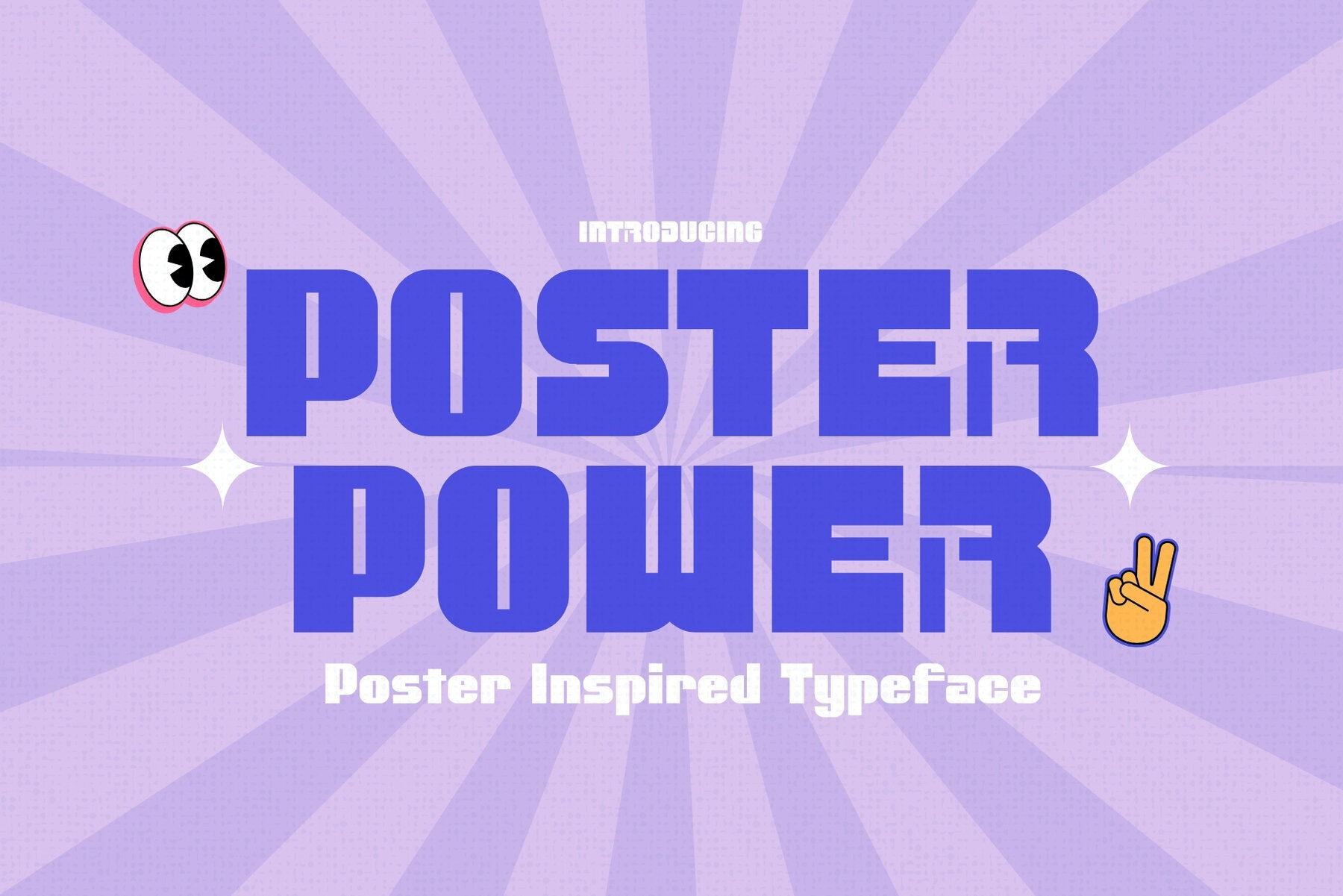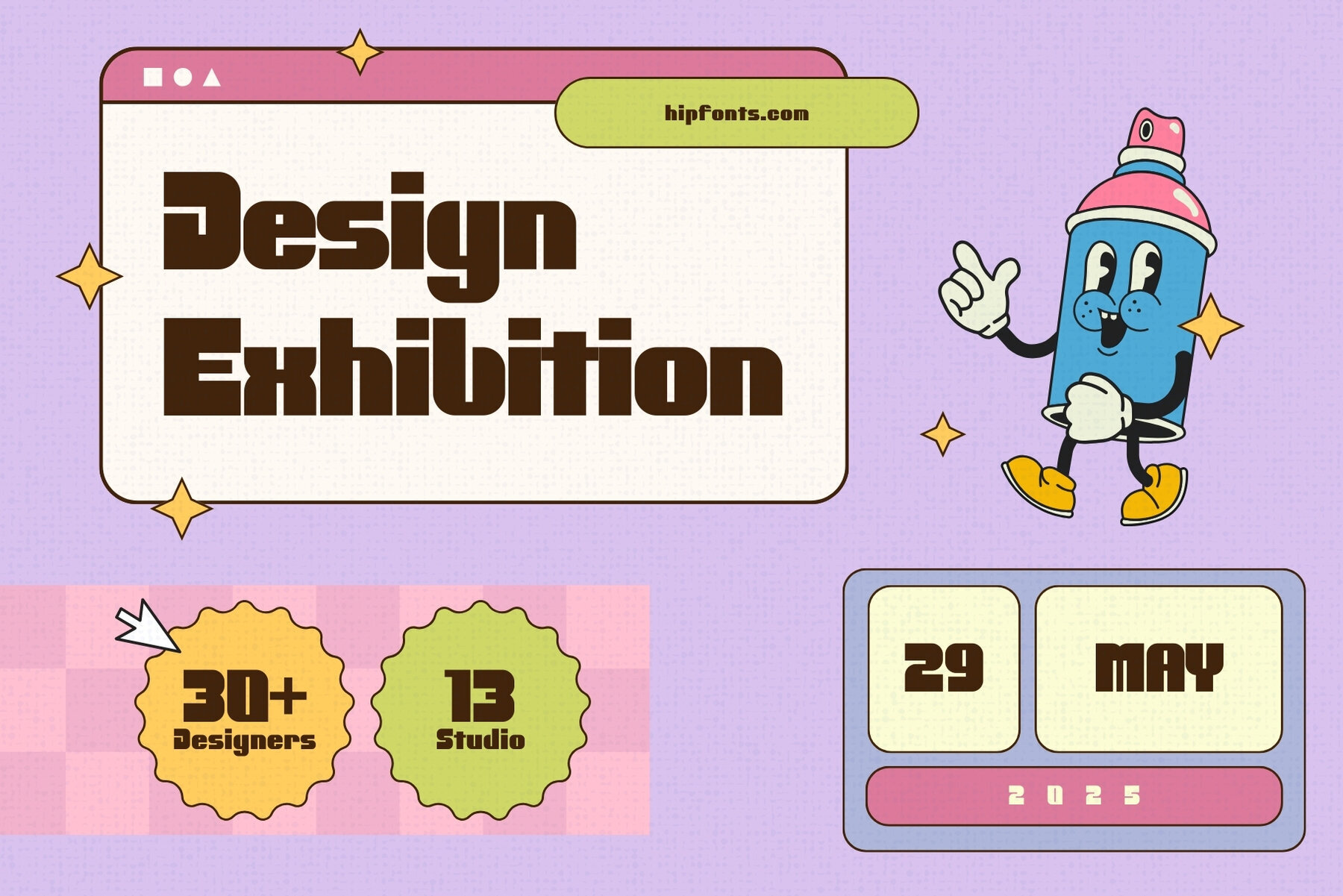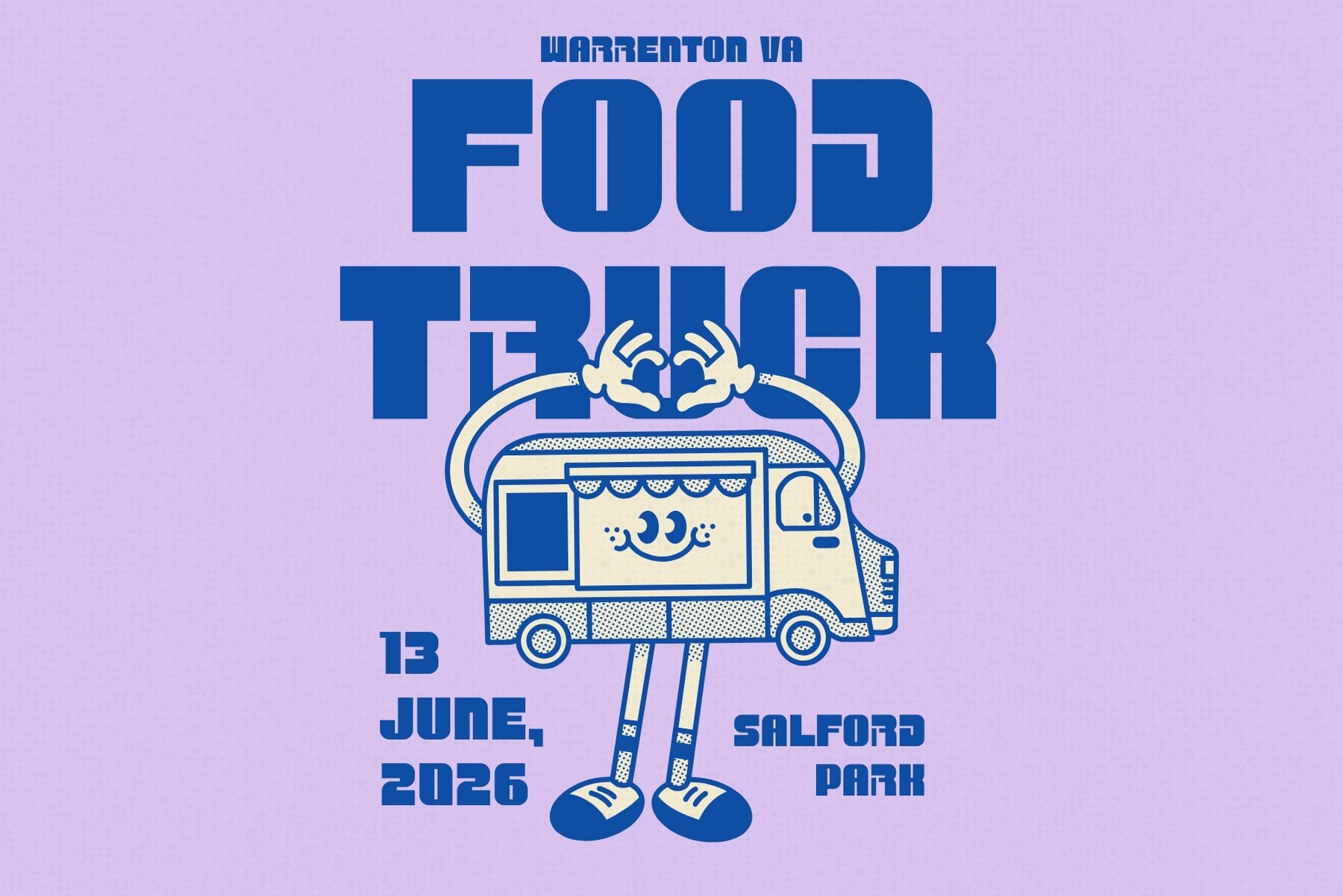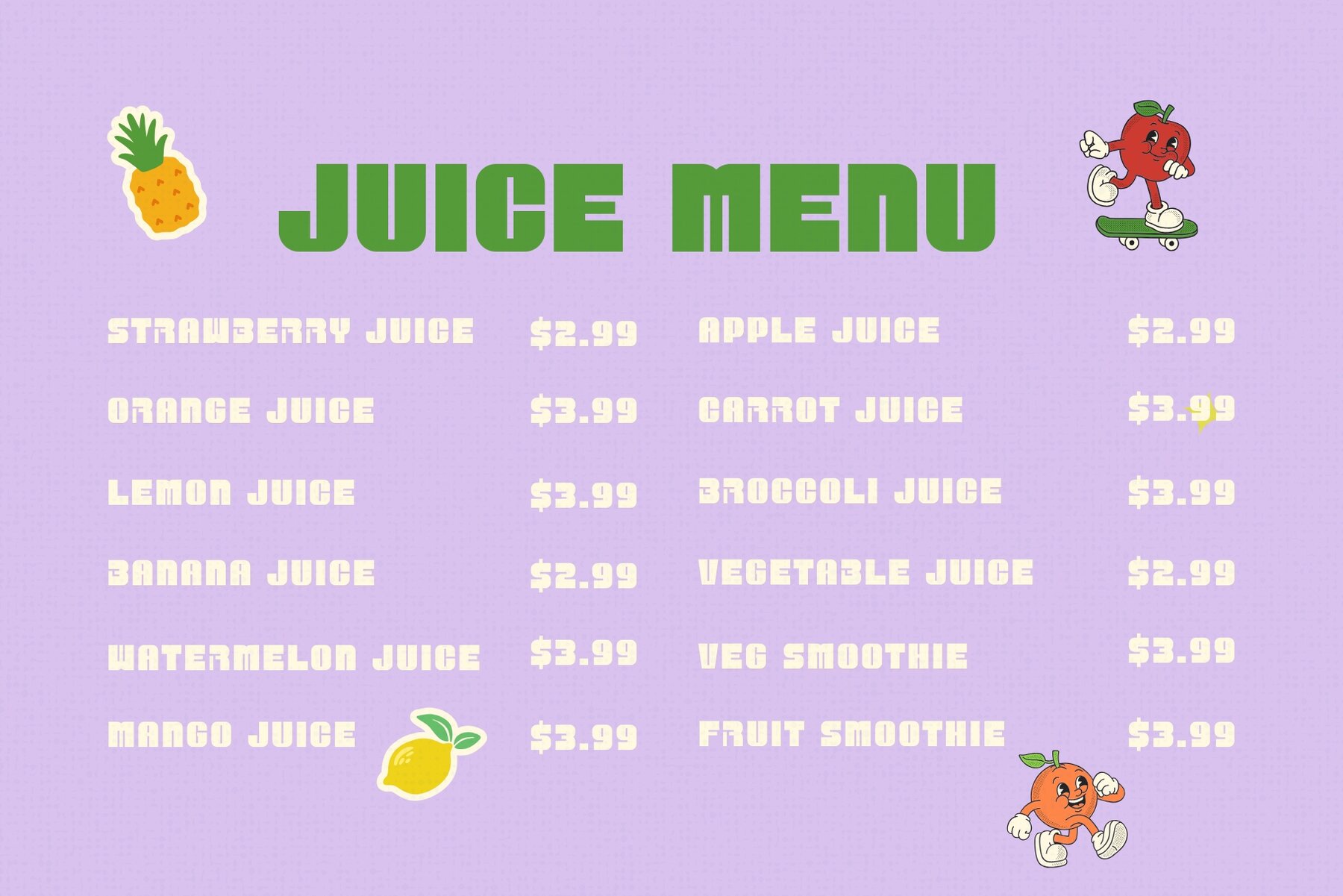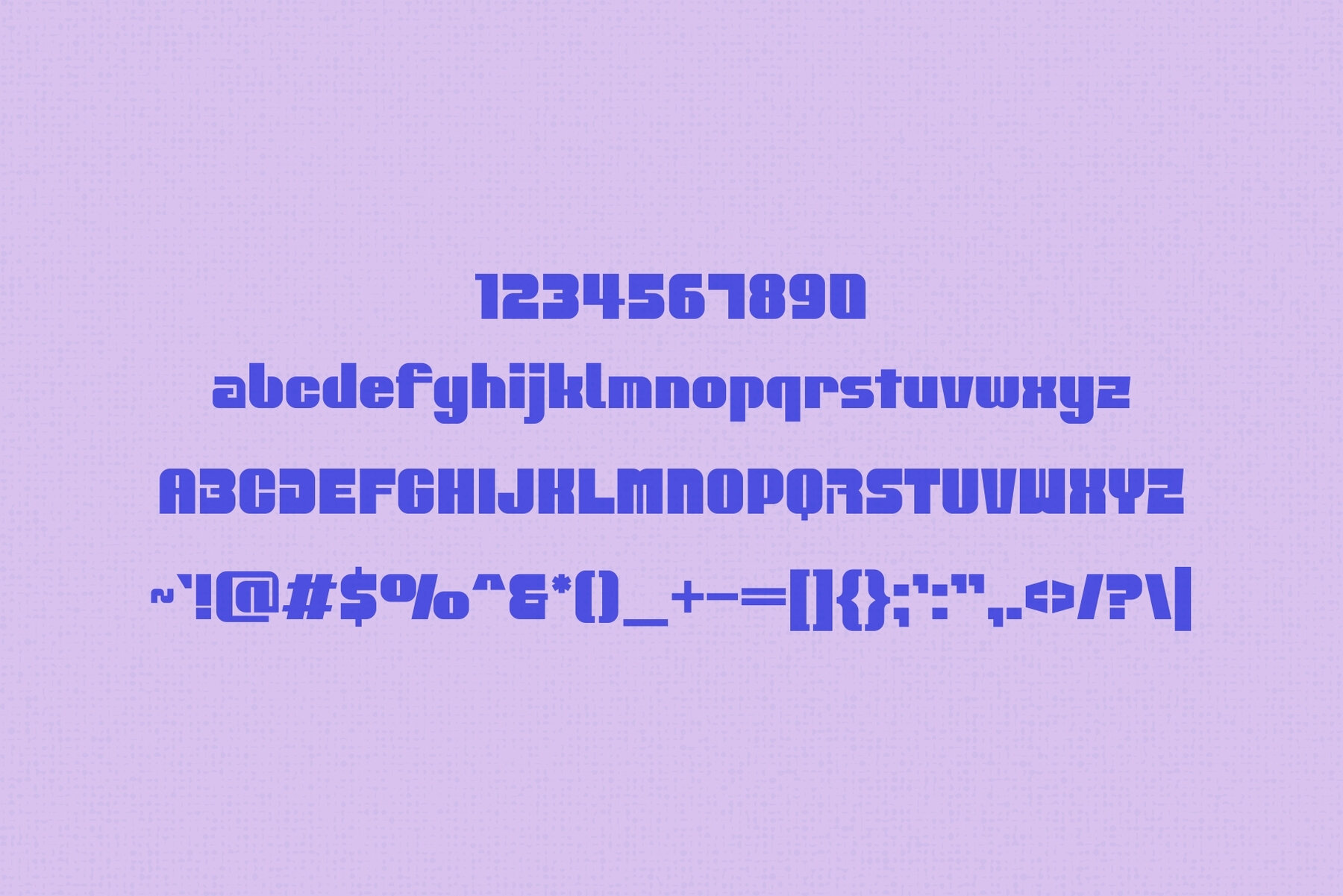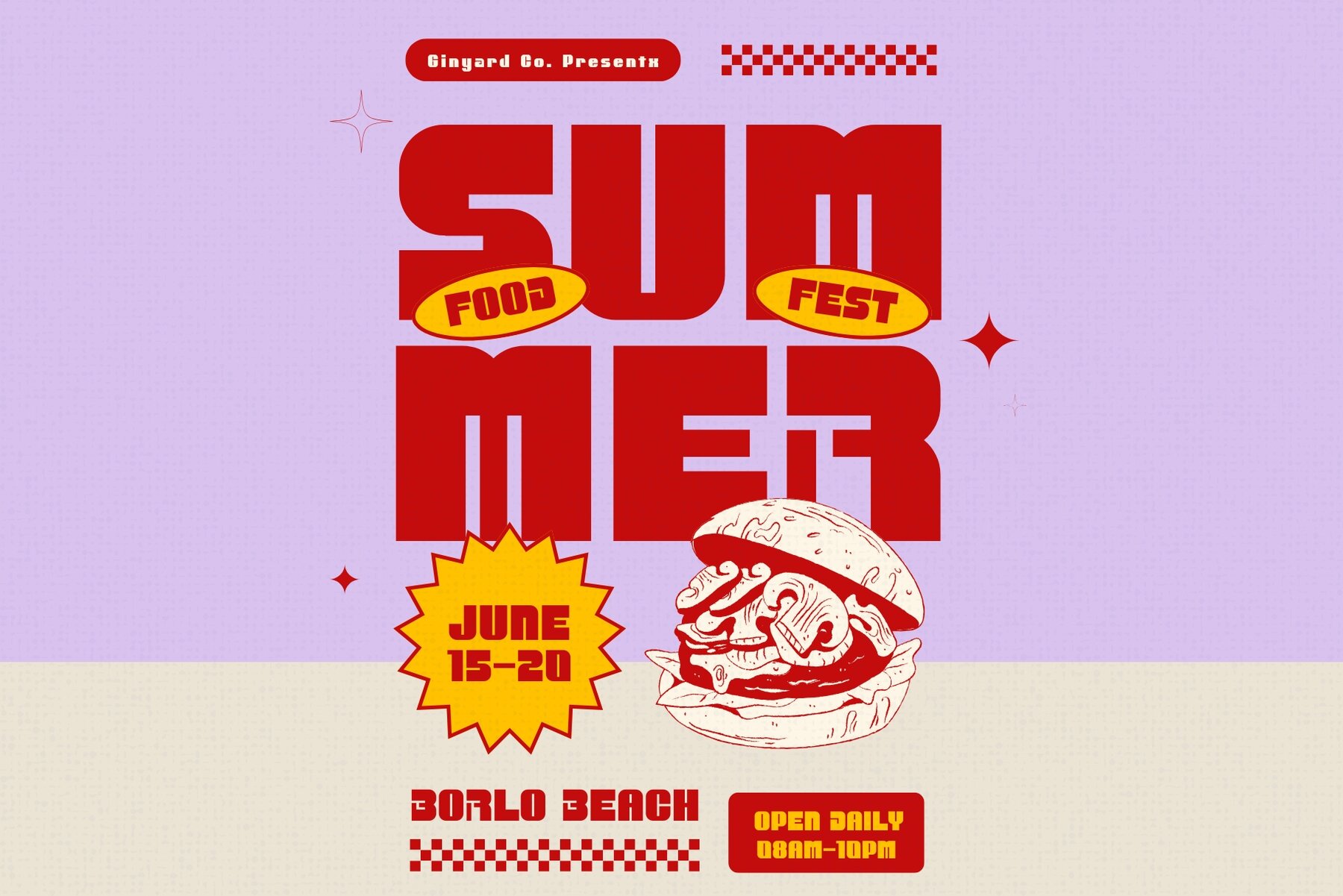
Poster Power Font
Poster Power Regular
Poster Power is a distinctive sans-serif typeface that's crafted to leave a lasting impression. Drawing inspiration from the bold lines of vintage event posters, this font is ideal for creating headlines, captivating advertisements, and striking designs. It combines a robust presence with retro charm, infusing your projects with energy and style. Whether you're working on a concert poster, festival banner, or any promotional material, Poster Power ensures your message stands out. Its clean yet charismatic letterforms offer a dynamic appearance that's simultaneously modern and classic. For designs that demand attention, Poster Power is the ultimate choice.Dominate Your Designs with Poster Power